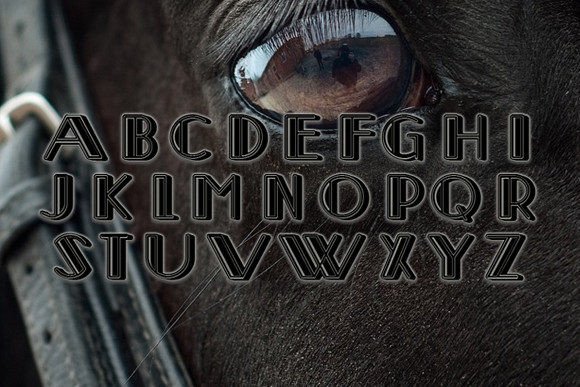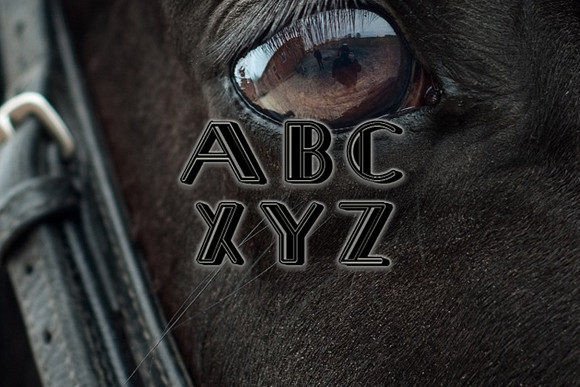
Introduction to Heuochs Font
Heuochs is a cool, art-deco display font that will fit any of your designs and projects.
Use this font on postcards, flyers, or anything that needs bold and daring typography .
Key Features of Heuochs Font